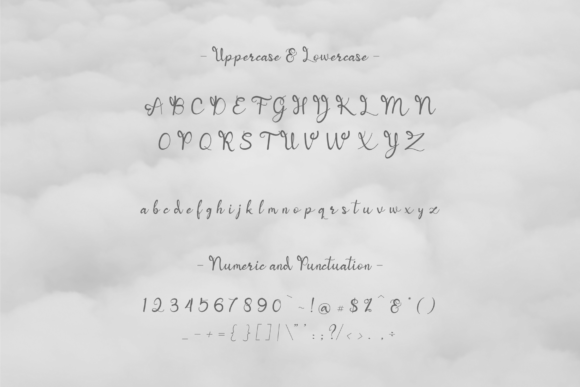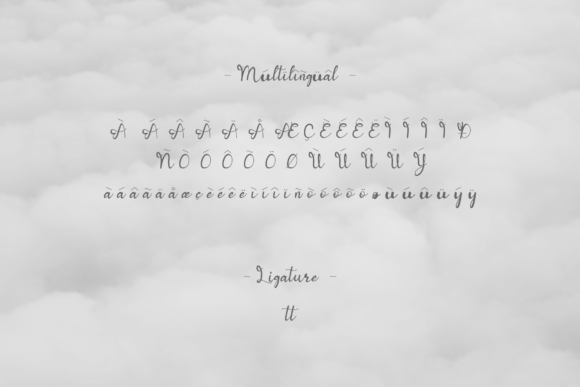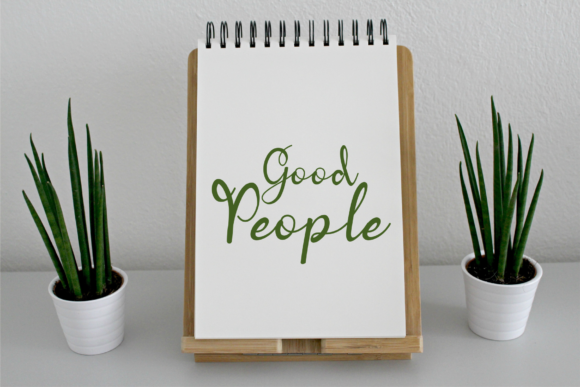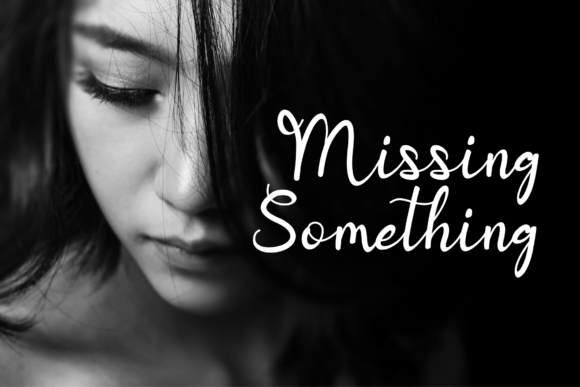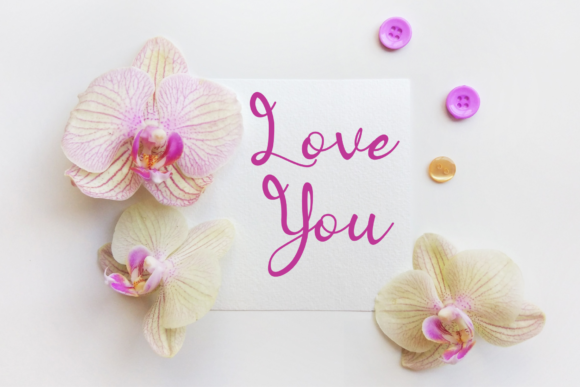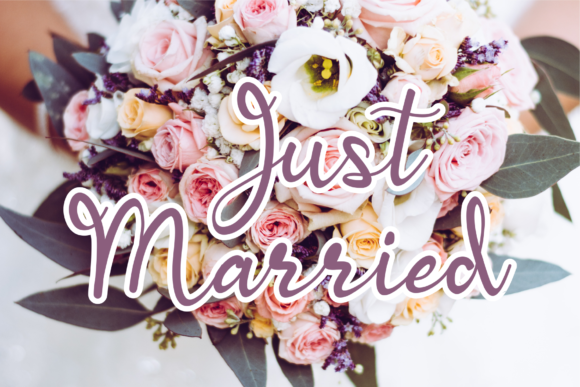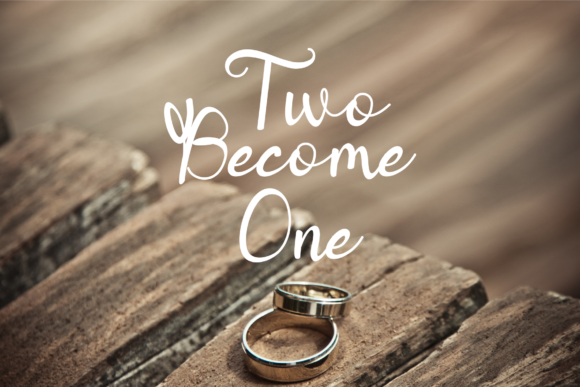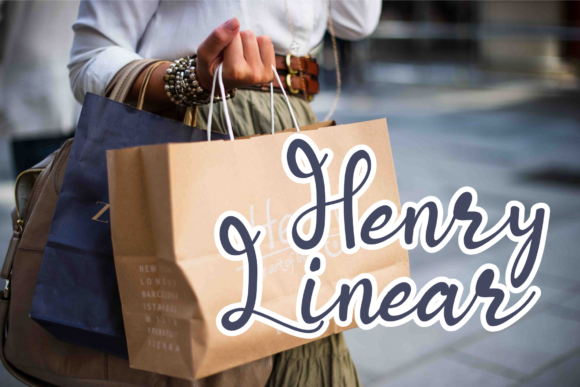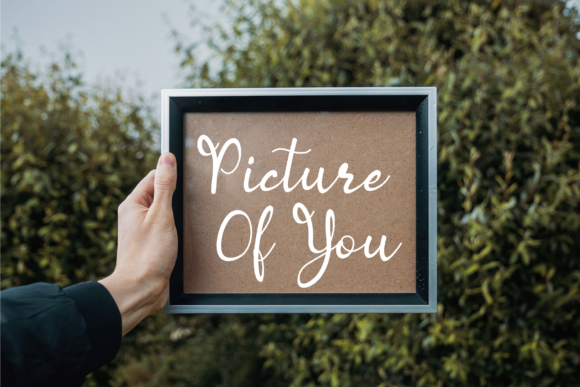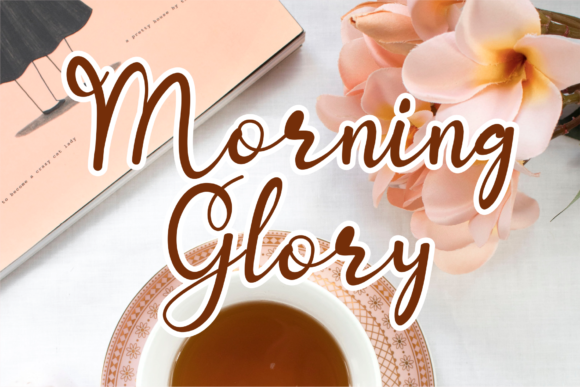
Abigail Font
About Abigail Font
Abigail is a beautiful and modern bold script font. It looks beautiful on wedding invitations, thank you cards, quotes, greeting cards, logos, business cards and more.